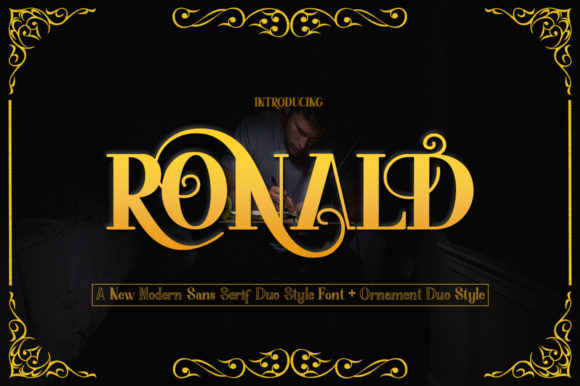
**Introducing Ronald Family Font: The Signature Font that Redefines Luxury and Elegance**
Dive into the world of typography with Ronald Family Font, an exquisite display font crafted to captivate your senses. Each letter dances gracefully across the page, adorned with intricate ornaments that exude opulence and refinement.
Indulge in the allure of Ronald's signature style, meticulously designed to elevate your designs to new heights. Its meticulously crafted curves and flourishes evoke a sense of timeless elegance, promising to make a lasting impression on your audience.
Whether you're a discerning designer seeking a touch of sophistication or an aspiring artist yearning to create masterpieces, Ronald Family Font empowers you to express your creativity with unparalleled flair. Its versatility knows no bounds, lending itself effortlessly to a myriad of applications:
- **Logos and Branding:** Craft logos that exude authority and sophistication, leaving an indelible mark on your brand identity.
- **Invitations and Stationery:** Transform ordinary invitations into extraordinary keepsakes, imbuing your special occasions with an air of timeless elegance.
- **Packaging and Product Design:** Elevate your products' packaging and designs, instantly conveying a sense of luxury and exclusivity to your customers.
- **Social Media Graphics:** Capture attention on social media platforms with visually stunning graphics that entice followers and leave a lasting impression.
Ronald Family Font empowers you to transcend the ordinary and embrace the extraordinary. Its enchanting beauty and unparalleled versatility will ignite your creativity, unleashing a world of possibilities for your digital designs.
Join the ranks of discerning designers and artists who have fallen under the spell of Ronald Family Font. Experience the transformative power of a font that whispers luxury, breathes elegance, and captivates your audience with every stroke.